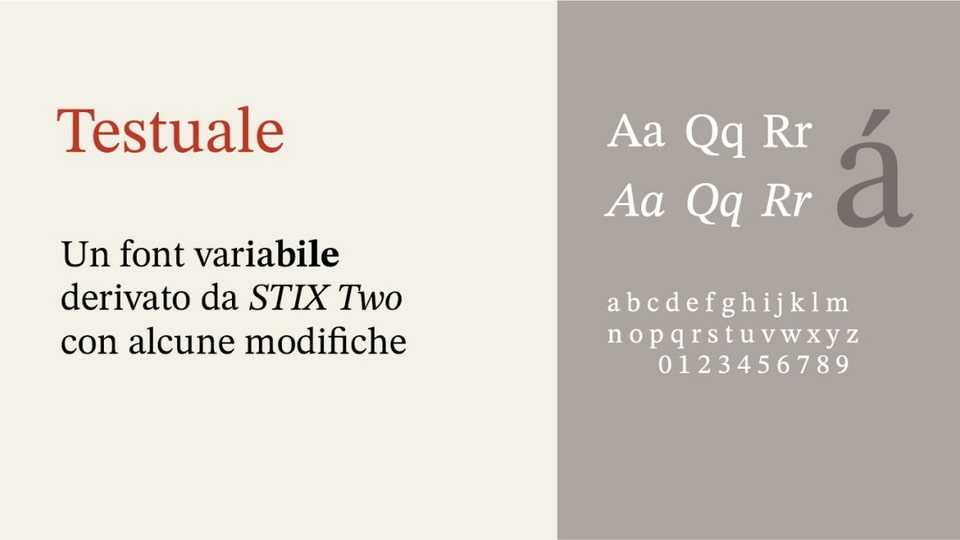
Download Testuale font, a variable serif typeface based on the STIX Two, designed to offer both classical elegance and modern versatility.
Designer: Michele Casanova